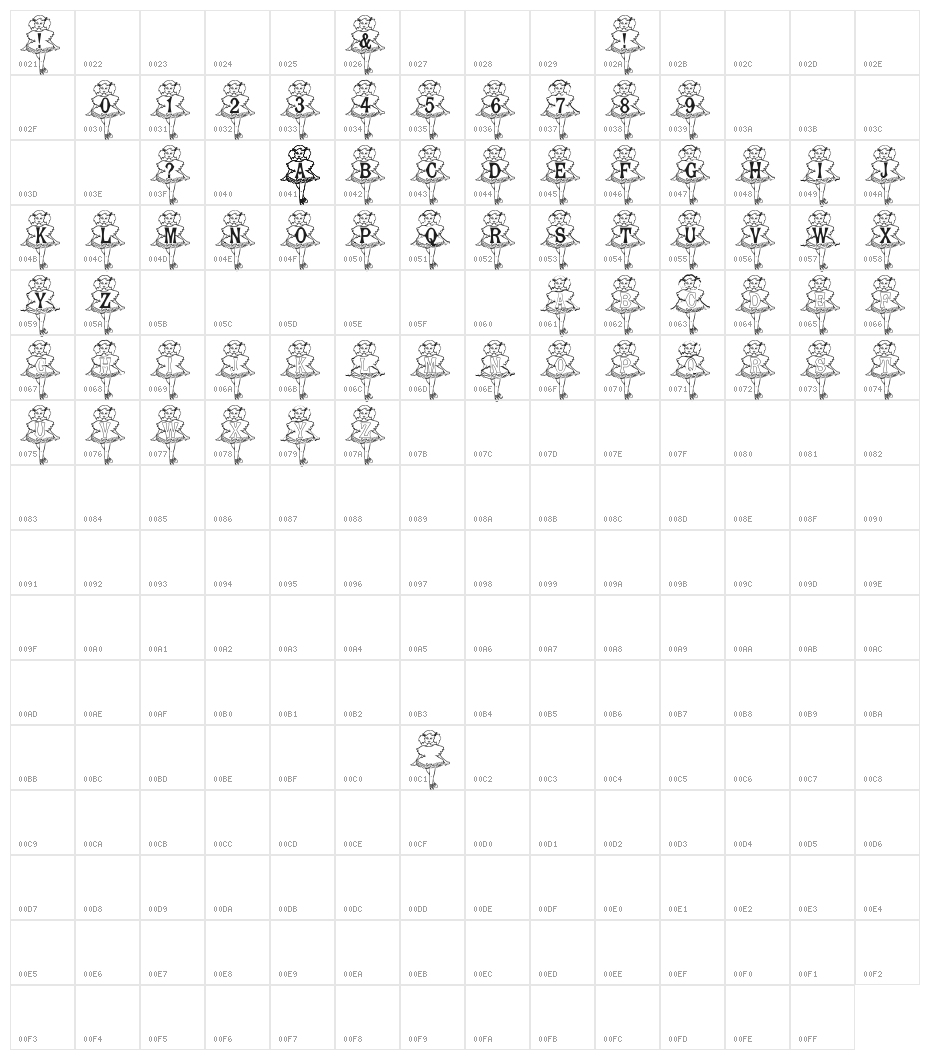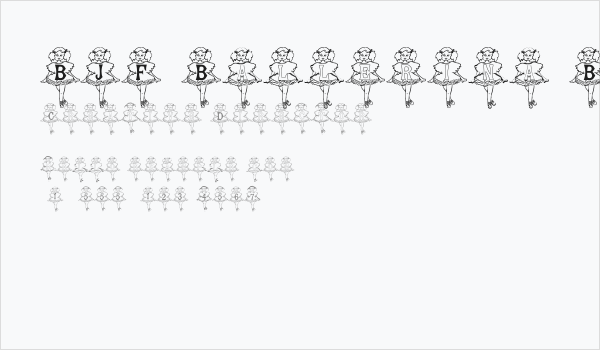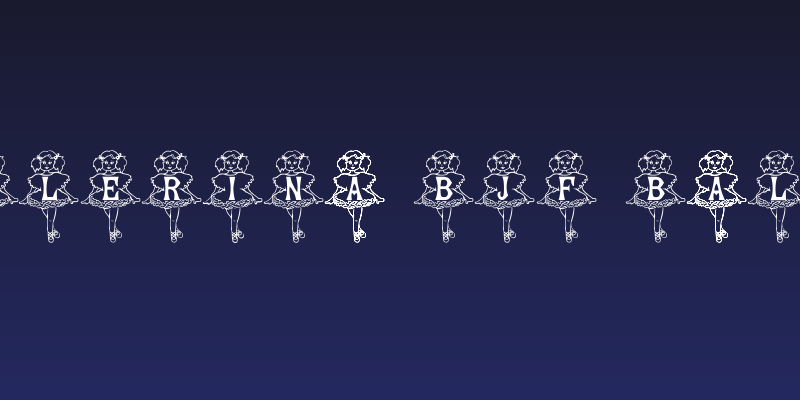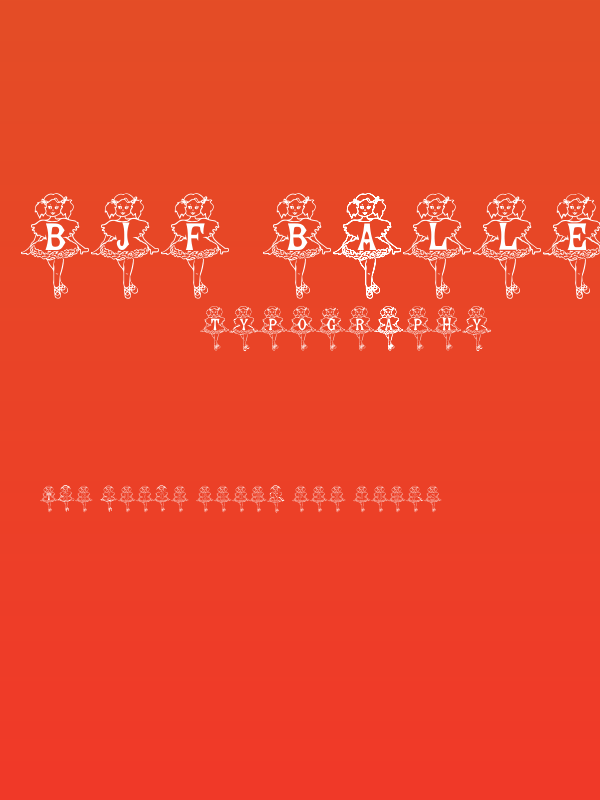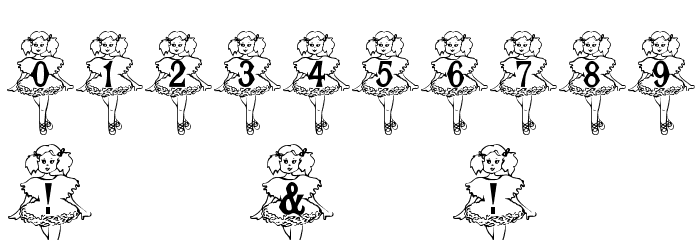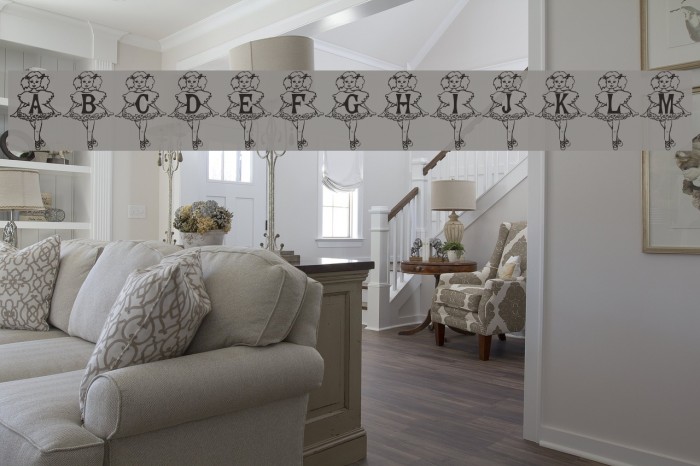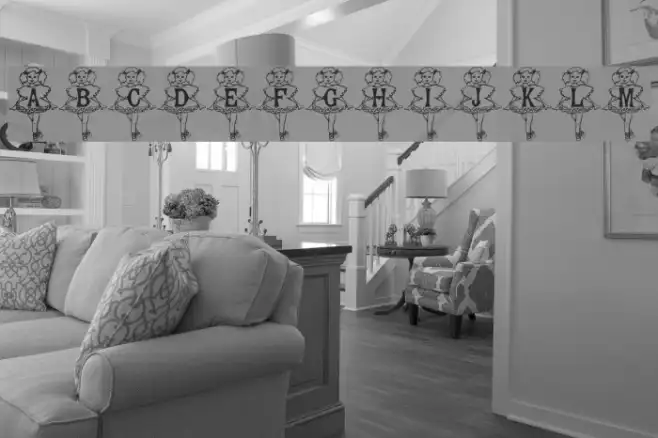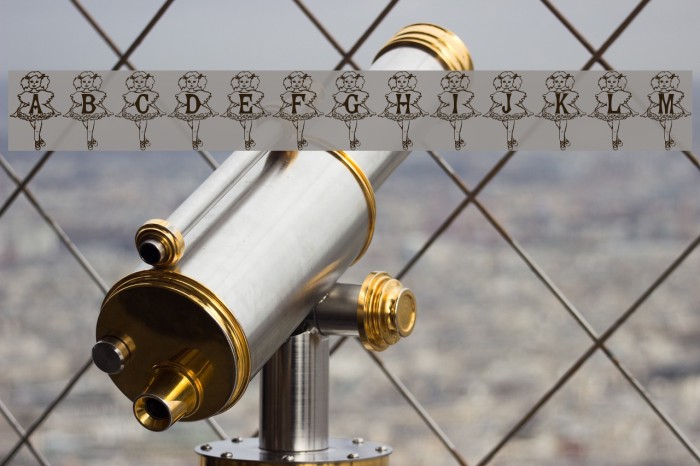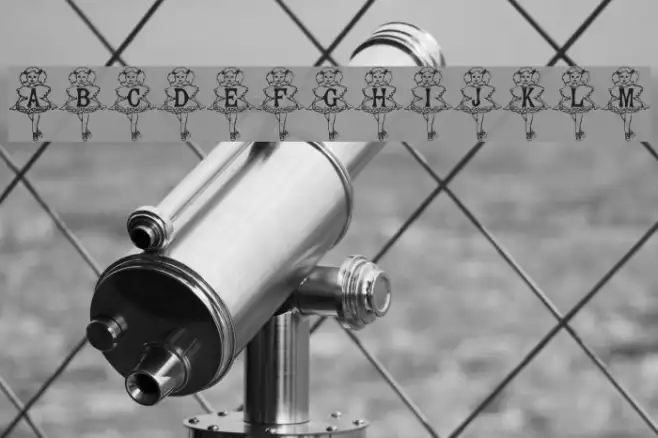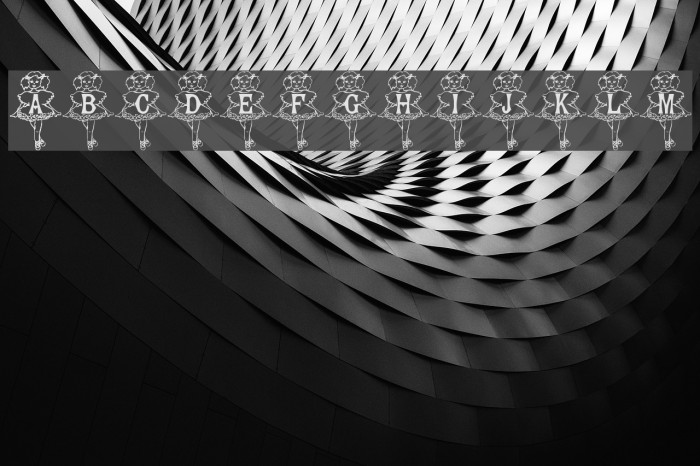
BJF Ballerina Font
BJF Ballerina Description
This whimsical font features characters embedded within charming ballerina illustrations. Each letter and number is centered on a ballerina, adding a playful and artistic touch. The font combines a decorative style with a sense of elegance and movement, making it ideal for creative projects. The characters are bold and clear, ensuring readability while maintaining an artistic flair. The unique design of each character being part of a ballerina figure adds a distinctive and memorable quality to the font.
| Proposed Projects | Ideal for children's books, dance-themed invitations, playful posters, and creative branding projects. |